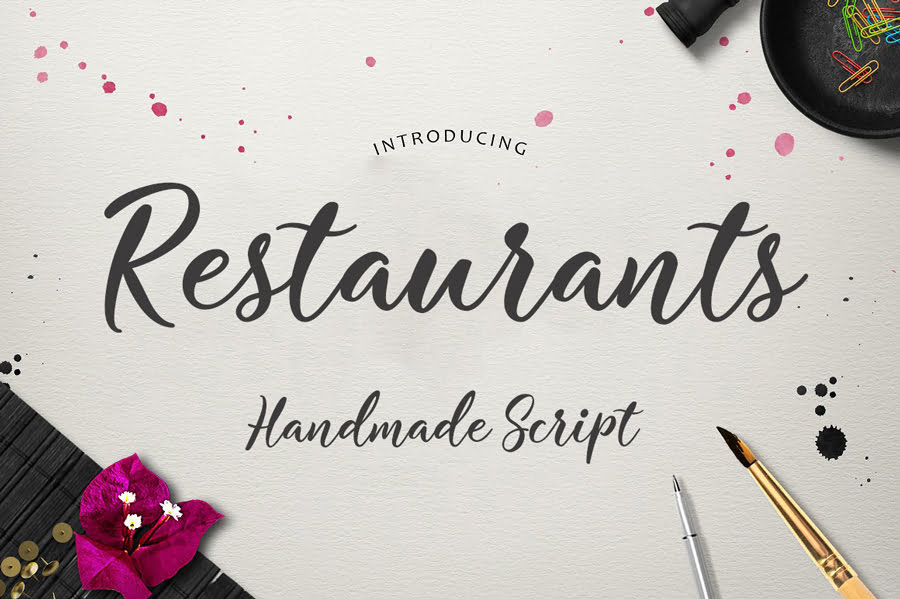
Restaurants Font
Introducing Restaurants Script Font! a new fresh & modern script with a handmade calligraphy style. This font are perfect for wedding postcard. Or you can create perfect and unique design of your logo, blog, stationery, marketing, magazines and more.